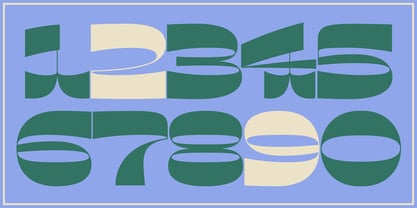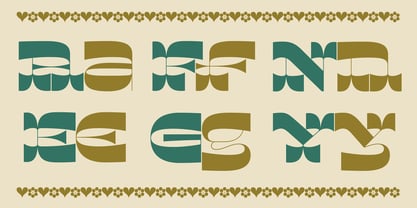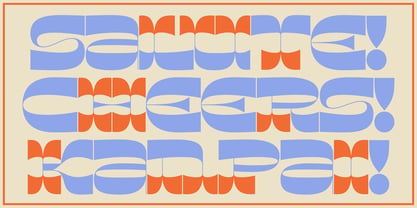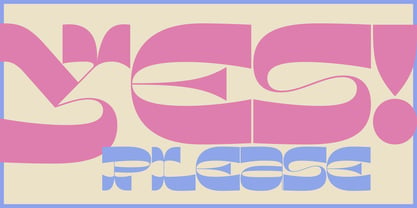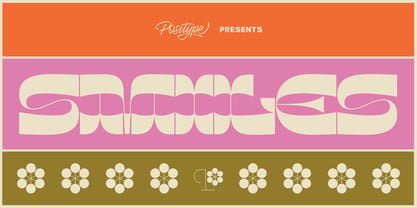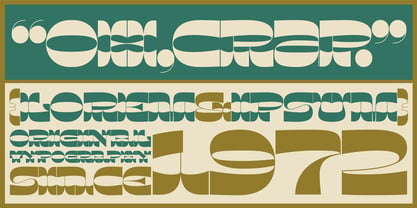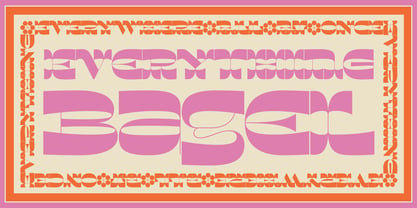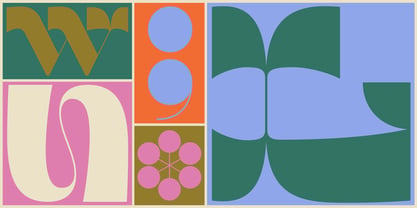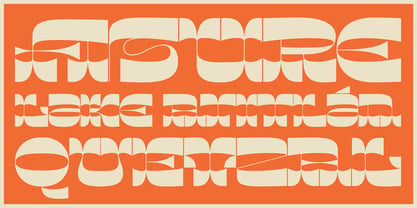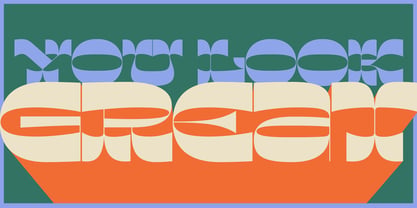
Smiles
Die Schriftfamilie Smiles wurde von Neil Summerour entworfen und von Positype veröffentlicht. Smiles enthält 1 Stile. Mehr über diese Familie
Sometimes, you just need to draw something fun. Smiles explores influences from wood type designs mixed with reverse contrast (and a bit of whimsy). The immenseness of letterforms warranted drawing lowercase options in a more biform configuration, sharing the cap height instead, while the bifurcated serifs and tight spacing create fun undulations along the baseline… allowing for more confident and energetic settings.
Designer: Neil Summerour
Foundry: Positype